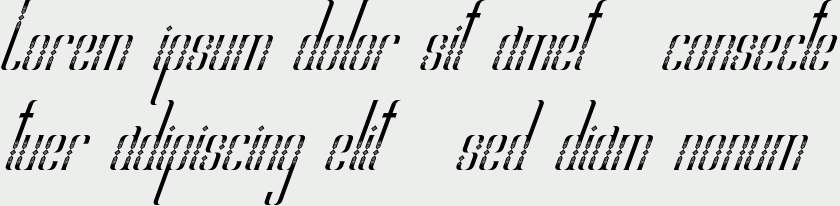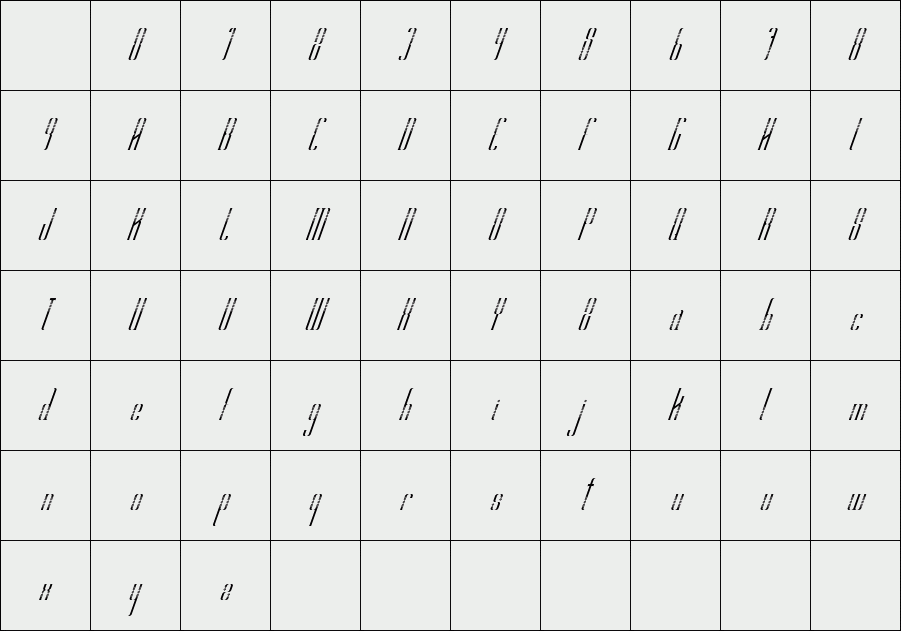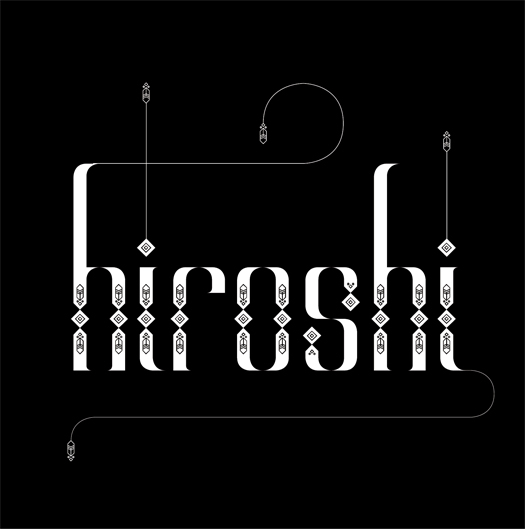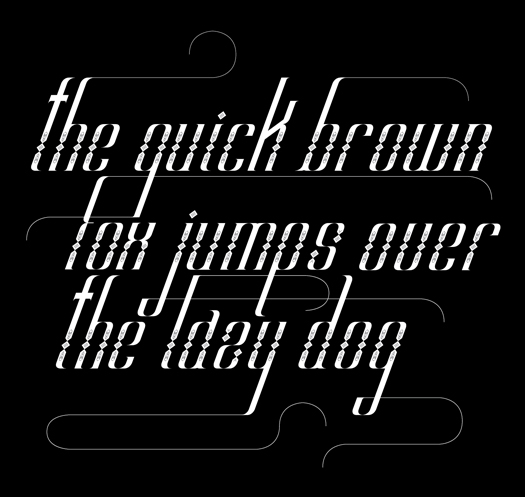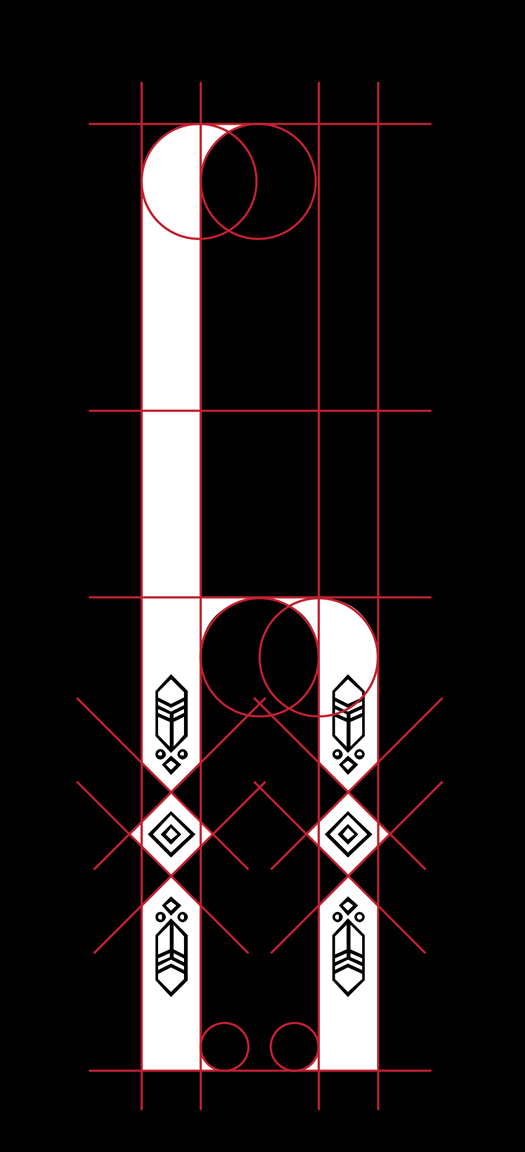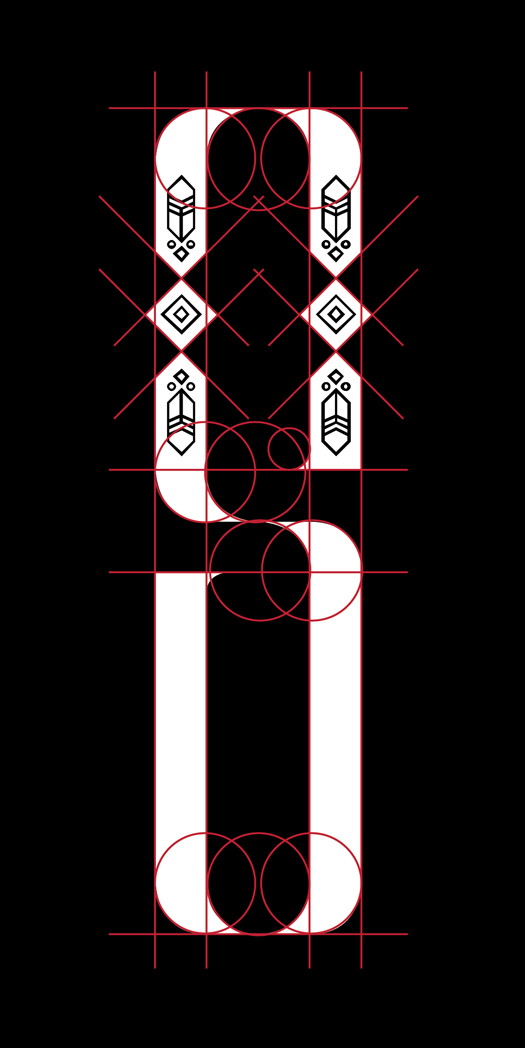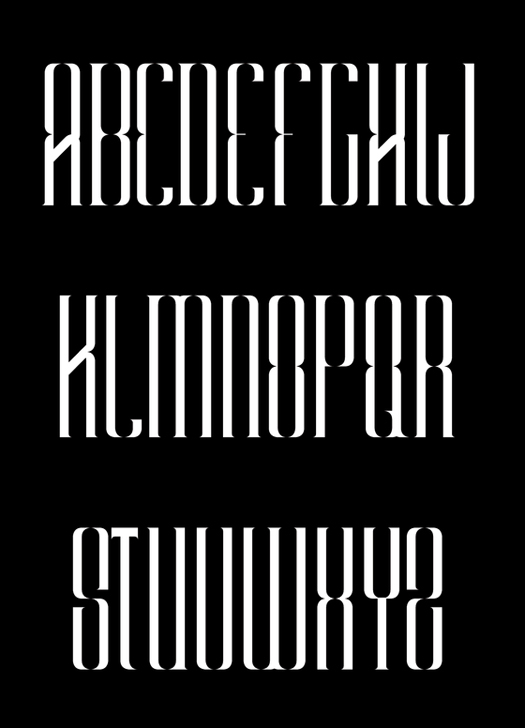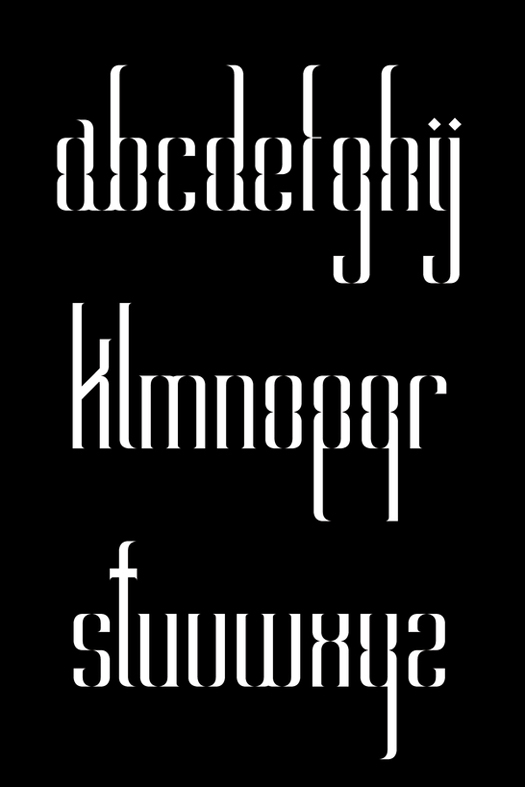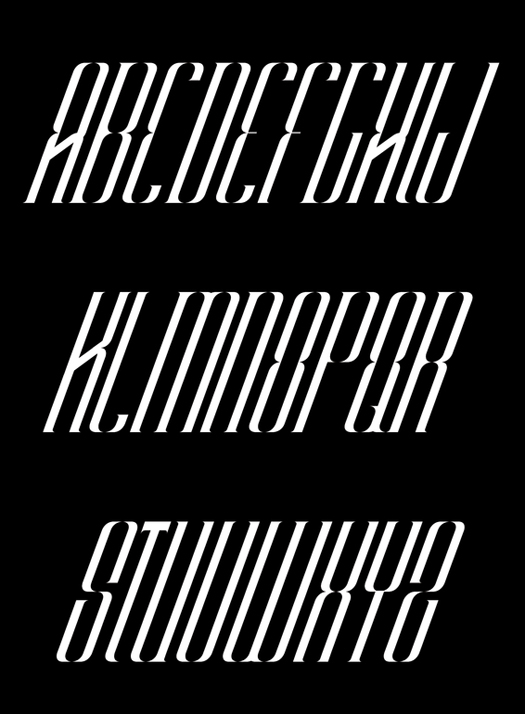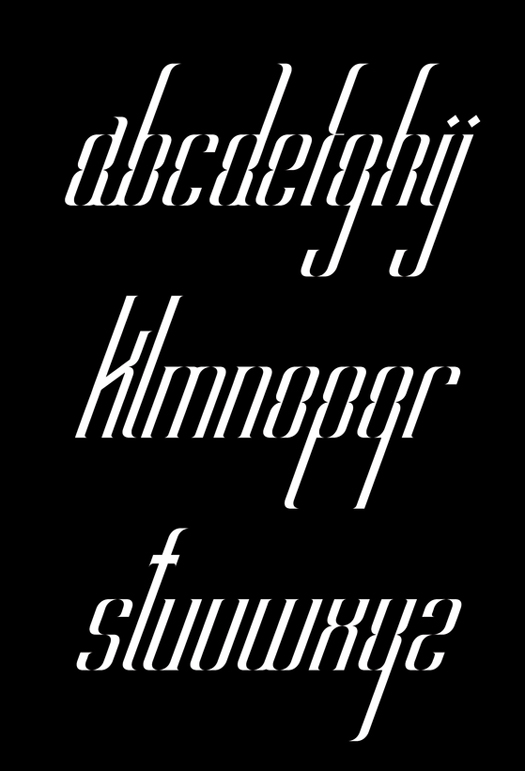
Hiroshi
/ Hiroshi pattern italic
Today is a special day for me and I have some awesome news I would like to present to you my latest typeface called Hiroshi is a 6 weight decorative typeface and is one of the best fonts I ever created for many reasons.
I really enjoyed the all the design process (yes even the kerning)